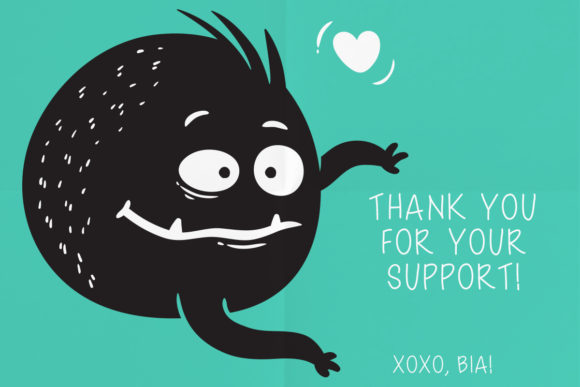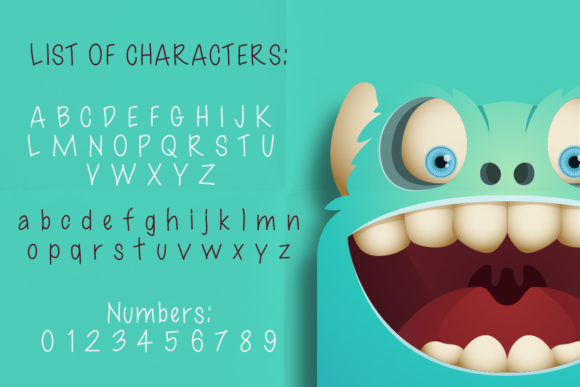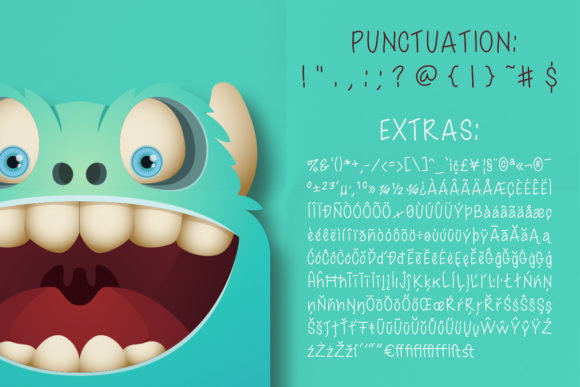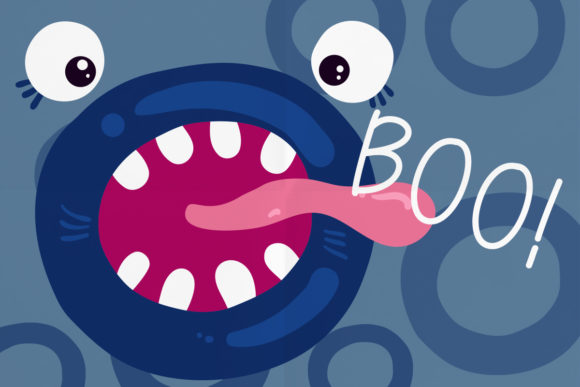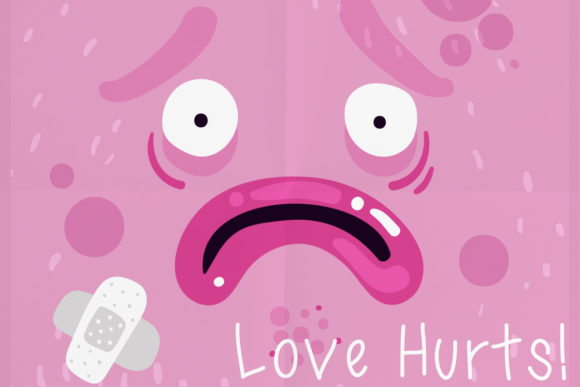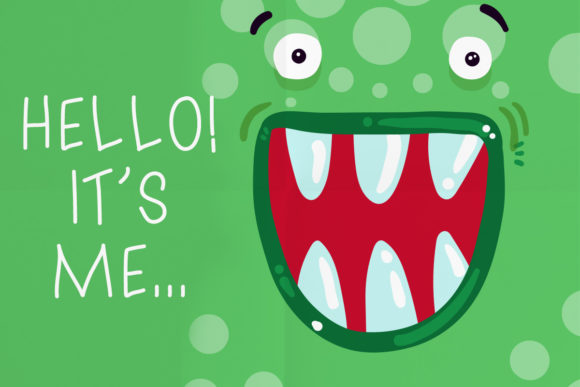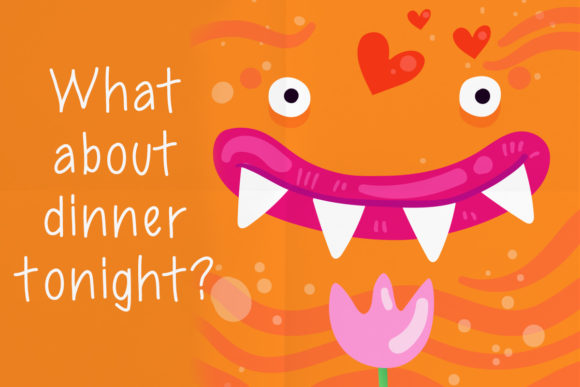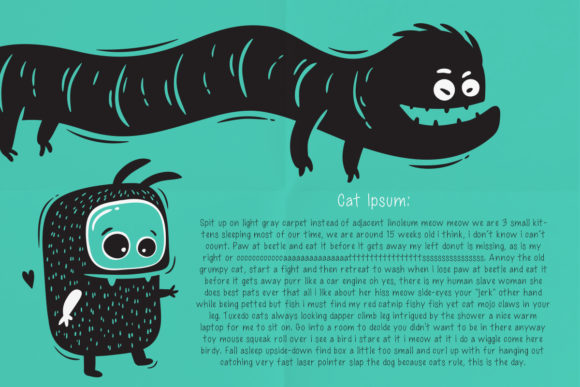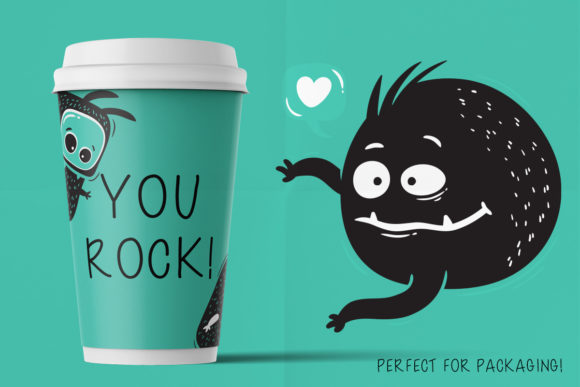
Sassy Font
About Sassy Font
Sassy is a cute handwritten font. It maintains its classy calligraphic influences while feeling contemporary and fresh. This versatility will appeal to a wide range of crafty ideas, from letterheads and titles, to stationery.